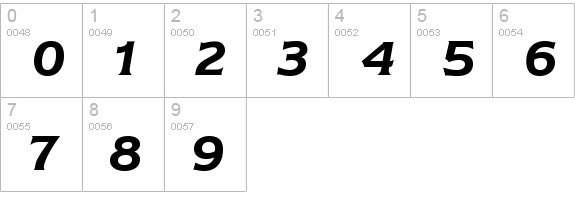
NewtextDemiItalic Font Details
NewtextDemiItalic is a stylish and versatile font that exudes elegance and sophistication. Its sleek and modern design makes it perfect for a wide range of creative projects, from branding to editorial design. The slanted italic style adds a touch of flair and personality to any text, making it stand out from the crowd. The NewtextDemiItalic font is not only visually appealing but also highly legible, making it suitable for both print and digital applications. Whether you're designing a logo, creating a poster, or crafting a website, this font will add a touch of class to your work. Best of all, NewtextDemiItalic is completely free to download at FontsMarket.com. So you can elevate your design projects without breaking the bank. Don't miss out on this fantastic opportunity to enhance your typography collection with this stunning and versatile font.